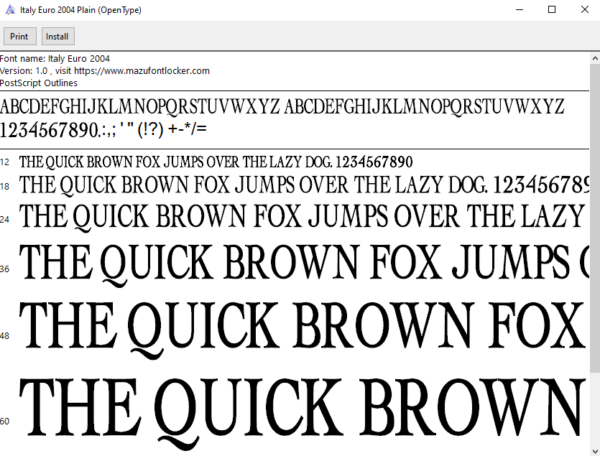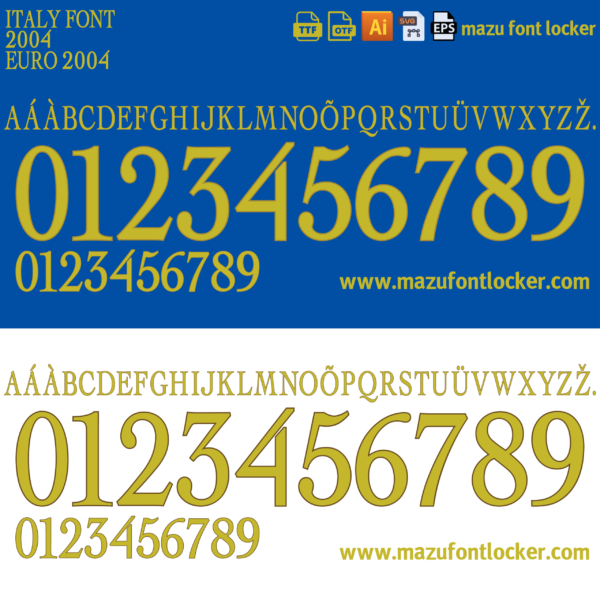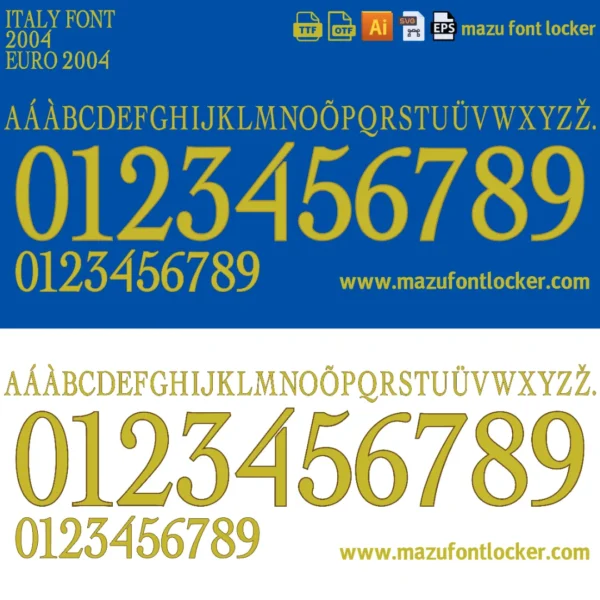
Italy Euro 2004 Font Vector – Legendary Majestic Azzurri Golden Era Masterpiece
This premium font captures the commanding, majestic, iron-willed war-machine lettering that embodies the unstoppable Italian spirit — delivering raw Mediterranean fire, explosive national pride, unbreakable resilience, tactical dominance, and legendary warrior grit that made Europe tremble.
Italy Euro 2004 Font Vector – Authentic Azzurri Typeface
The Italy Euro 2004 Font Vector is a premium typeface that accurately recreates the official match lettering worn by the Italy national team during the 2004 UEFA European Championship. This high-quality vector font kit captures the bold, elegant, and classic typography that represents the pride, passion, and rich football heritage of the Azzurri.
Designed for professional designers and passionate Italy fans, the Italy Euro 2004 Font Vector delivers perfect authenticity for creating realistic jersey mockups, fan merchandise, matchday posters, social media graphics, and Italian football content. It pairs beautifully with the iconic blue kit featuring the famous FIGC crest.
This font stands out because of its sharp vector precision and strong national identity. Every letter and number is crafted to match the exact style used on the players’ shirts during the 2004 Euro campaign. Whether you are making realistic kit templates or exciting Azzurri content, the Italy Euro 2004 Font Vector gives your designs that authentic Italy look.
The letterforms in the Italy Euro 2004 Font Vector are tall, bold, and highly readable. The strokes have a strong, clean weight with excellent edge definition that looks powerful on the back of jerseys while maintaining the classic Italian elegance and modern strength.
• Full uppercase A–Z and numbers 0–9 in authentic Italy Euro 2004 style
• Create highly realistic Italy Euro 2004 home and away jersey mockups with accurate lettering
• Produce custom Italy merchandise with the 2004 aesthetic